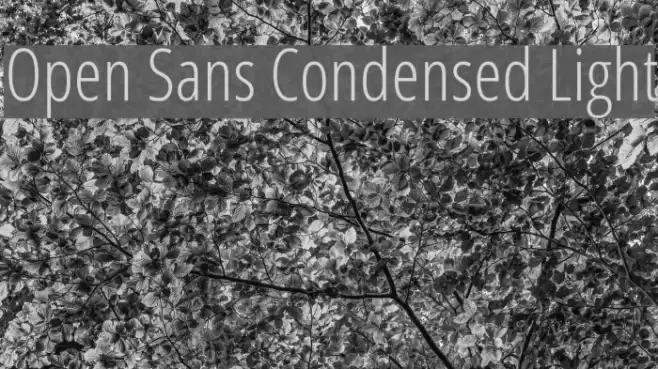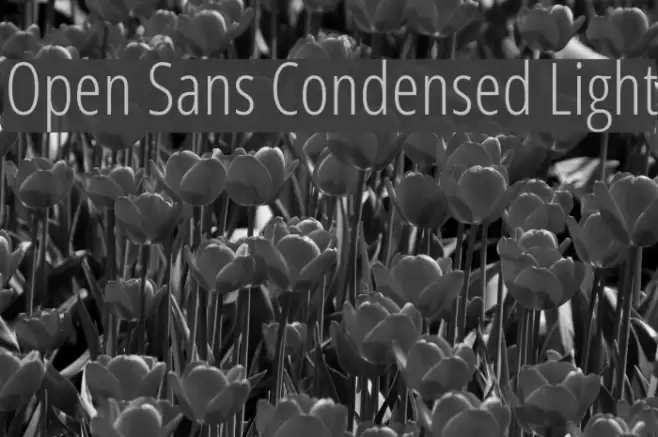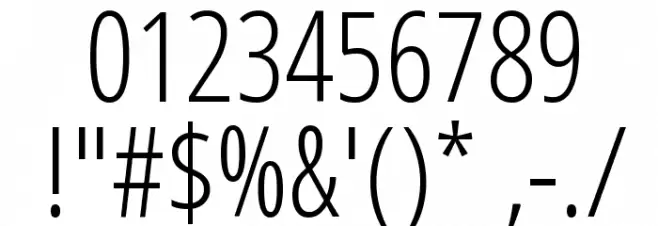
Open Sans Condensed Light
This font features a clean and modern sans-serif design with a condensed structure, making it ideal for space-saving applications. The characters are uniformly narrow, providing a sleek and efficient look. The strokes are consistent and light, contributing to a minimalist aesthetic. The font maintains excellent legibility across both uppercase and lowercase letters, as well as numerals and special characters. Its simplicity and clarity make it versatile for various design needs, from digital to print media.
A clean, modern sans-serif font with a condensed and light structure.
- Proposed Projects: Ideal for websites, mobile apps, branding, and editorial design where space efficiency and clarity are essential.
- Weight: Light
- Width: Condensed